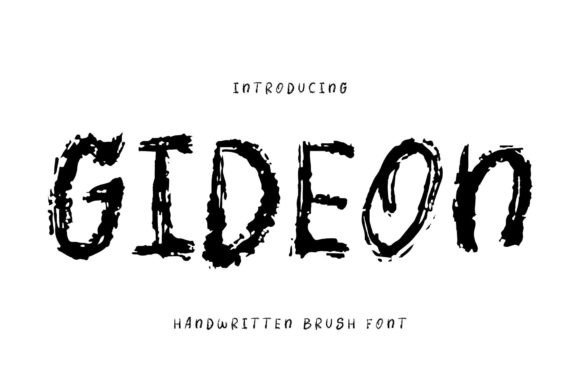
Dive into the world of timeless charm with Gideon Font, a script font family that exudes a touch of nostalgia and authenticity. Inspired by vintage book covers, Gideon captures the essence of classic literature and brings it to life in your digital creations.
With its elegant strokes and playful curves, Gideon adds a touch of warmth and personality to your projects. Whether you're crafting blog posts, designing logos, or creating eye-catching branding materials, Gideon is the perfect choice to make your words stand out.
Imagine the impact of your blog posts adorned with Gideon's captivating characters, drawing readers in with an aura of sophistication and intrigue. Unleash your creativity and let Gideon transform your branding into a timeless masterpiece. Its distinct vintage charm is sure to leave a lasting impression on your audience.
Gideon's versatility extends to invitations, greeting cards, planners, and photo albums, adding a touch of nostalgia to your personal creations. Preserve your memories in a truly unique way with Gideon's timeless elegance.
Don't miss the opportunity to add Gideon to your font collection and elevate your designs to new heights. Experience the magic of vintage charm and authenticity with Gideon Font, your perfect companion for a wide range of creative projects.